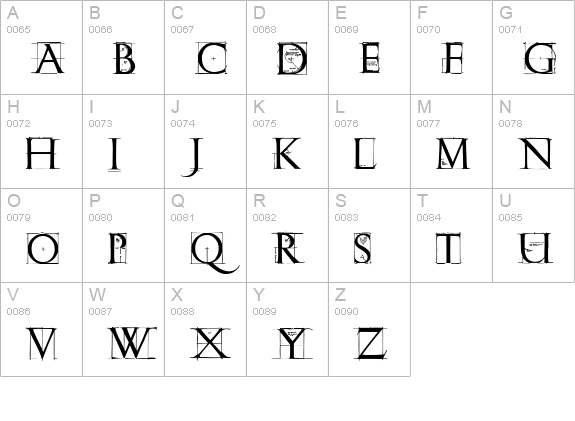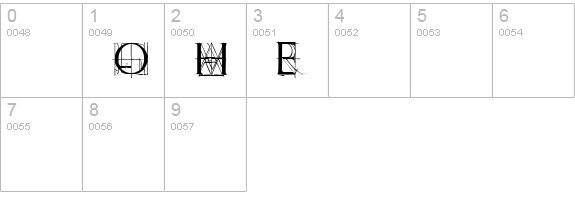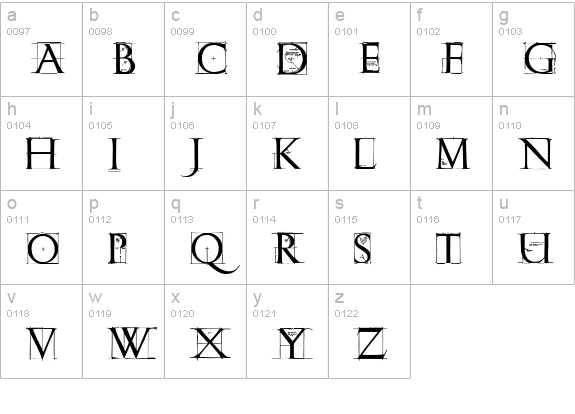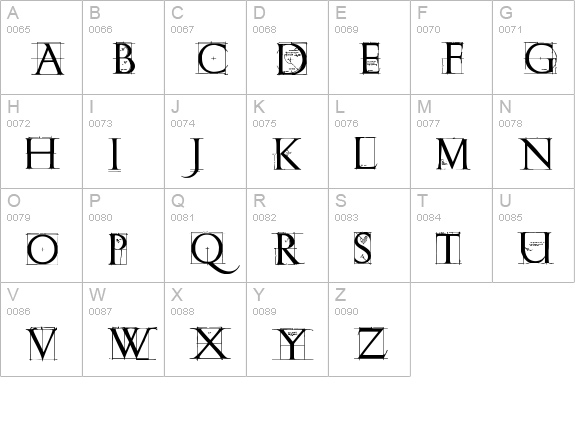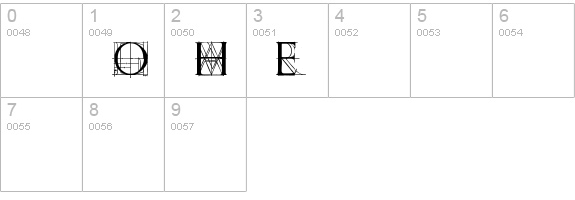
RomanGridCaps Font Details
RomanGridCaps is a modern and stylish font that exudes a sense of sophistication and elegance. With its clean lines and geometric shapes, this typeface is perfect for creating eye-catching designs that demand attention. Whether you're working on a branding project, a poster design, or a website layout, RomanGridCaps will add a touch of class to your work. The unique grid pattern incorporated into the letterforms gives this font a contemporary edge, making it stand out from the crowd. Its versatility allows it to be used in a variety of design projects, from sleek and minimalist to bold and striking. Best of all, RomanGridCaps is available for free download at FontsMarket.com. So why wait? Elevate your designs with this stunning font today!